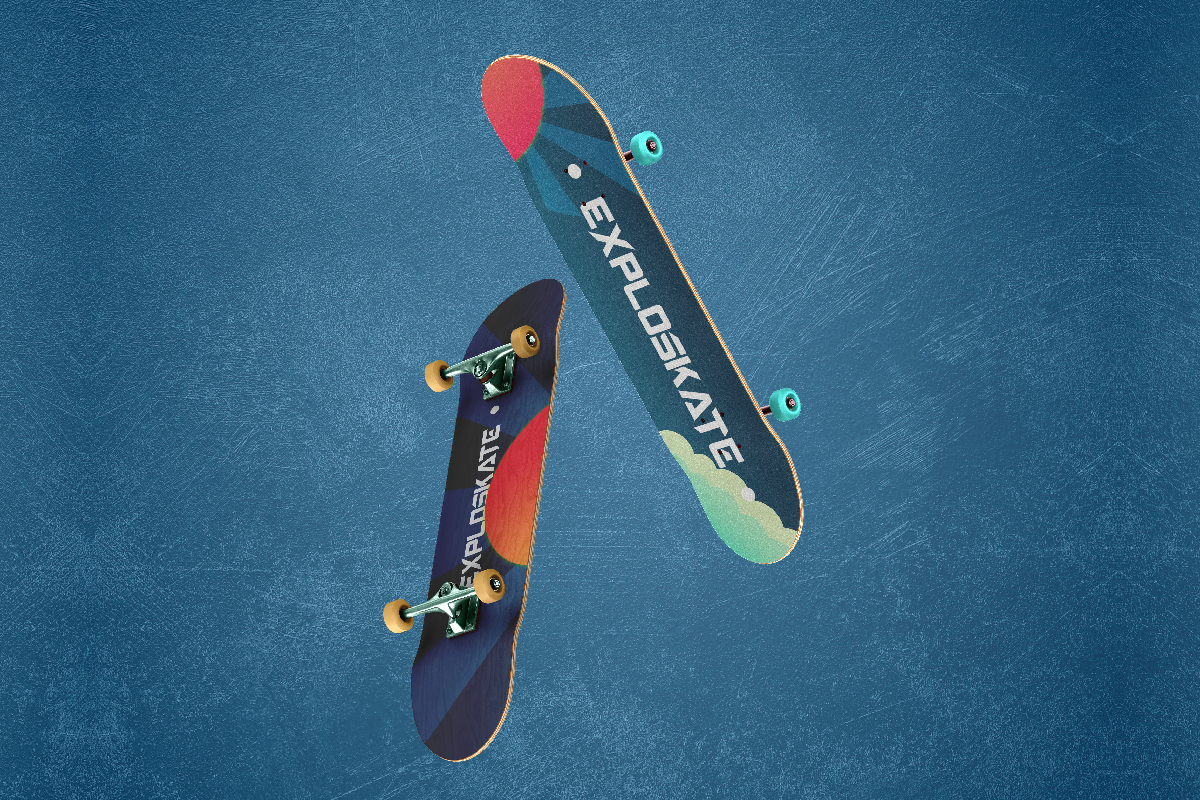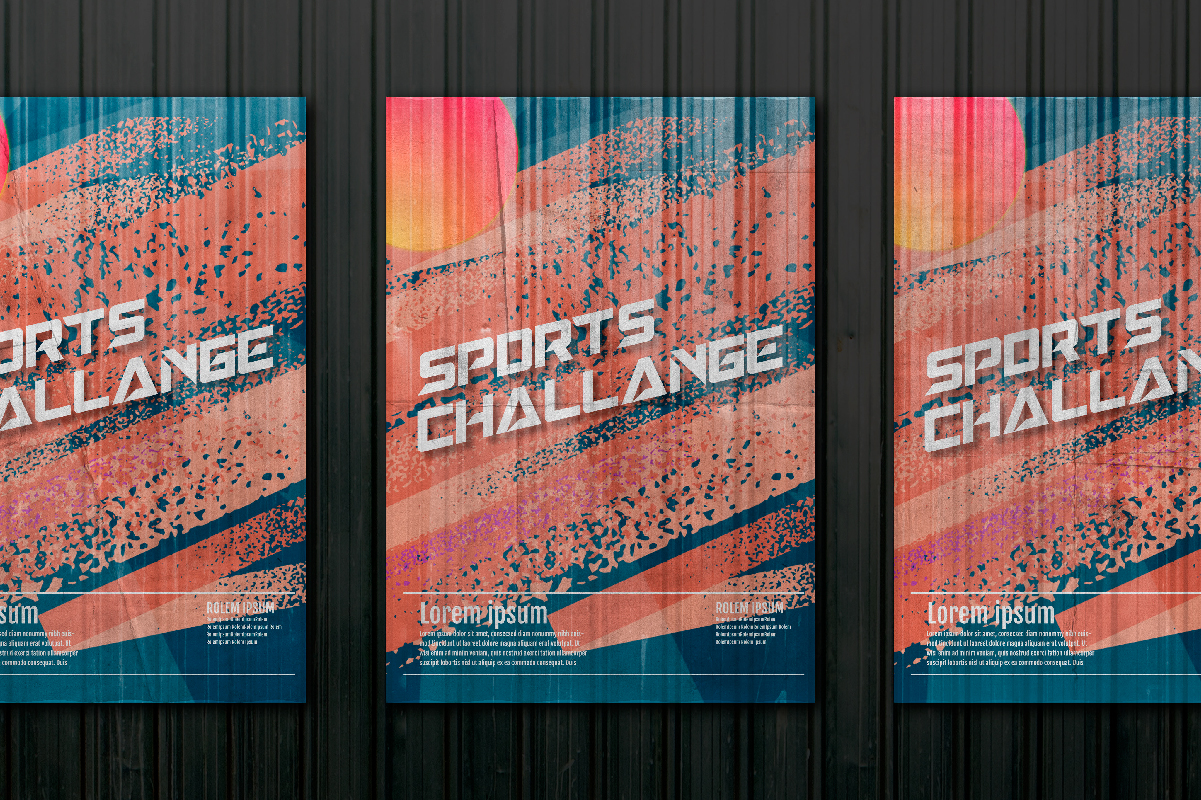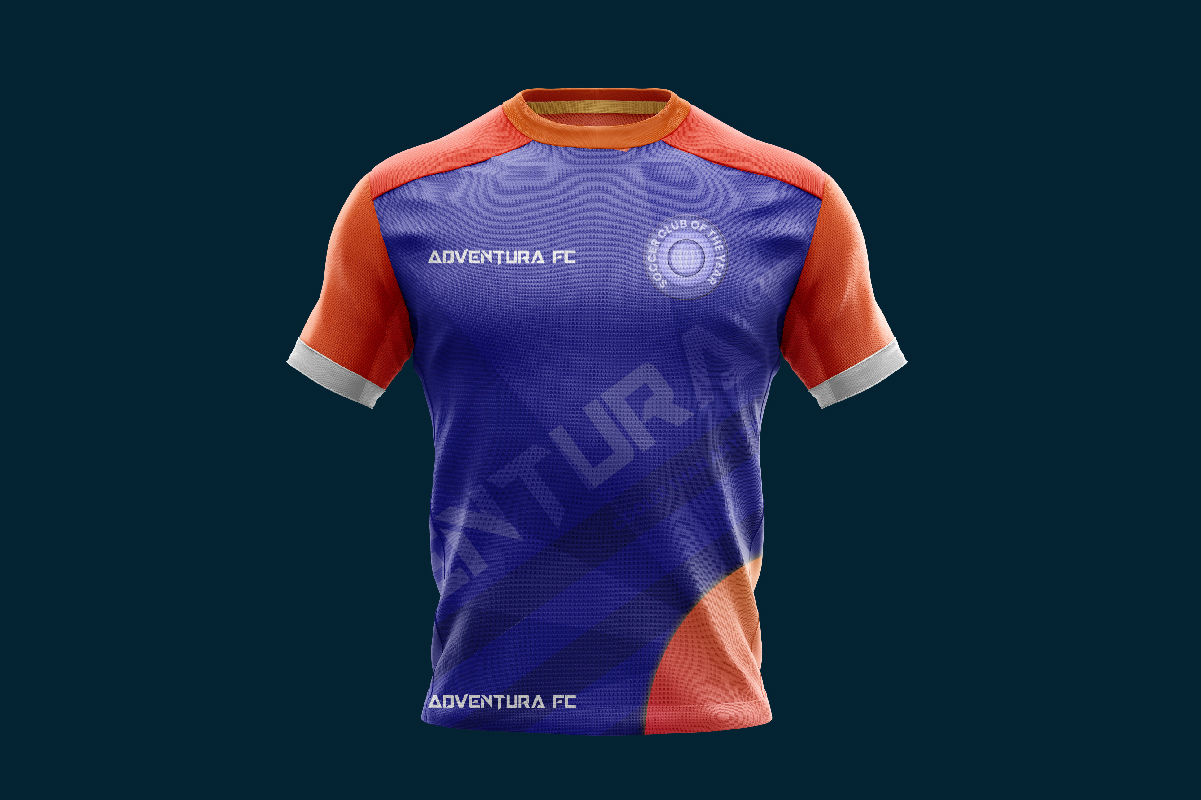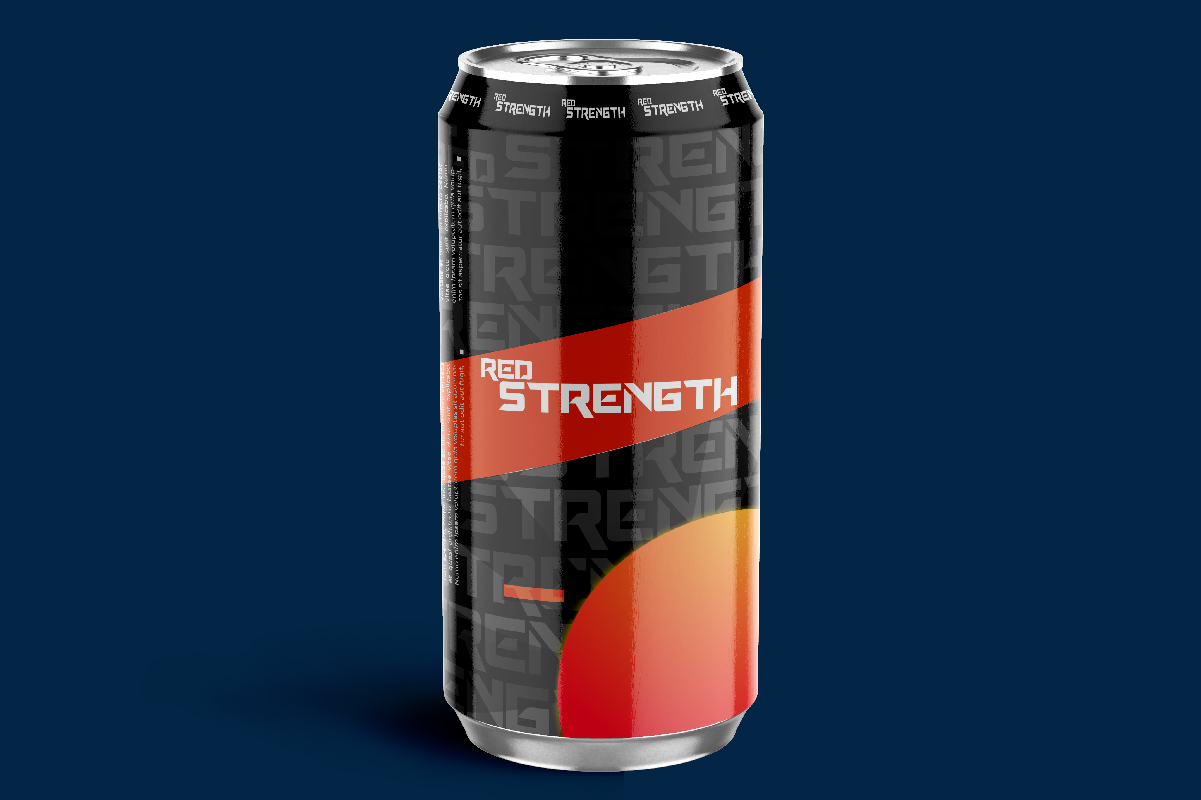
Adventurer Font
Adventurer Display Font
This font was handcrafted for any your special projects including : headlines, promotion, events, branding, advertising, magazine, signage, invitation, stationery, social media posts, label, or and any projects that need unique strong style. The theme/industries of this font is Movie, Game, Magazine, Music, Video, Sports, Racing etc